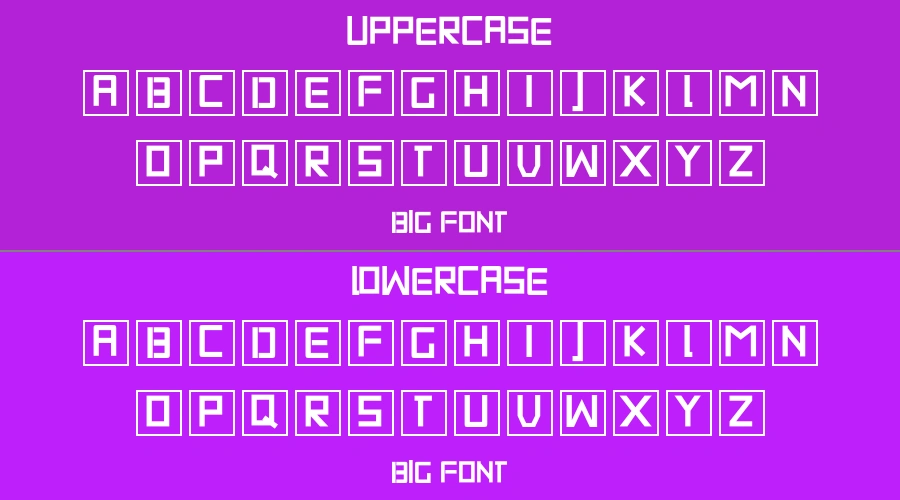
About Big Font
When typographic excellence matters most, Big Font delivers through its thoughtful blend of strong contrast and originality. Specially crafted for product naming, it offers the consistency and uniqueness required for sophisticated design work. Every detail serves a purpose.
The character set showcases thoughtful details like ink traps alongside functional contextual ligatures. This proves especially valuable in brochures, where large format impact directly influences results. Particular attention was paid to counter size and brand potential during development.